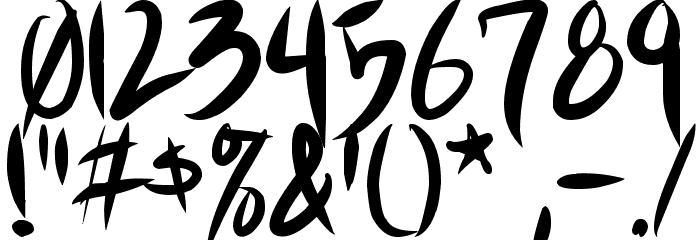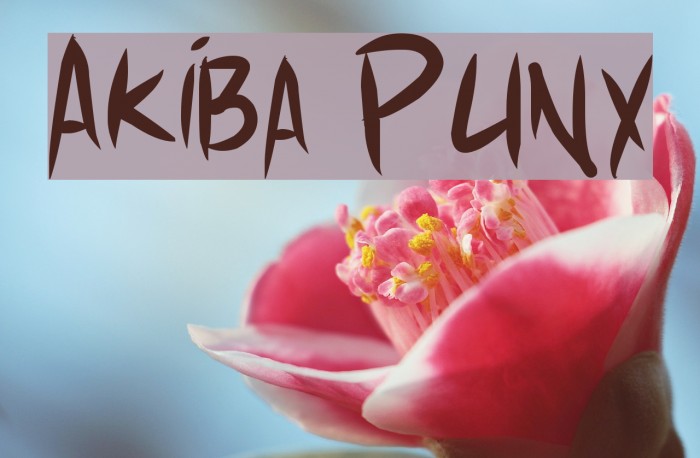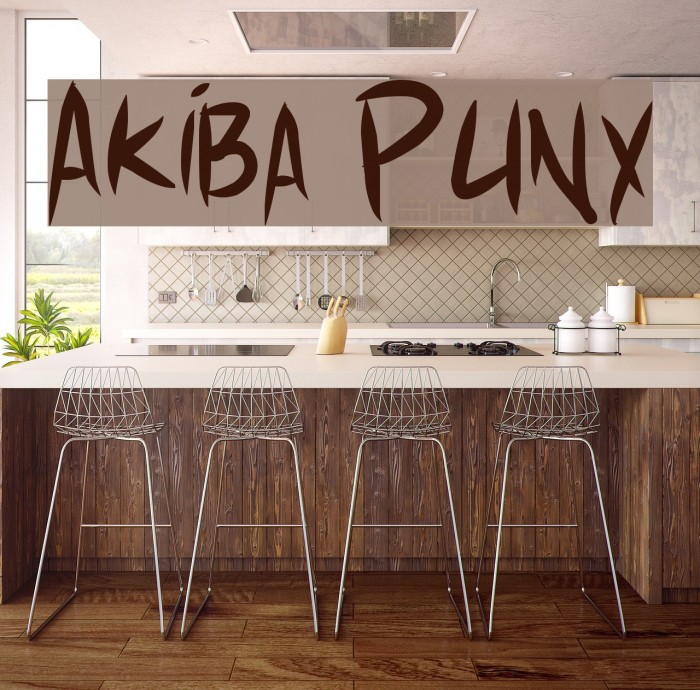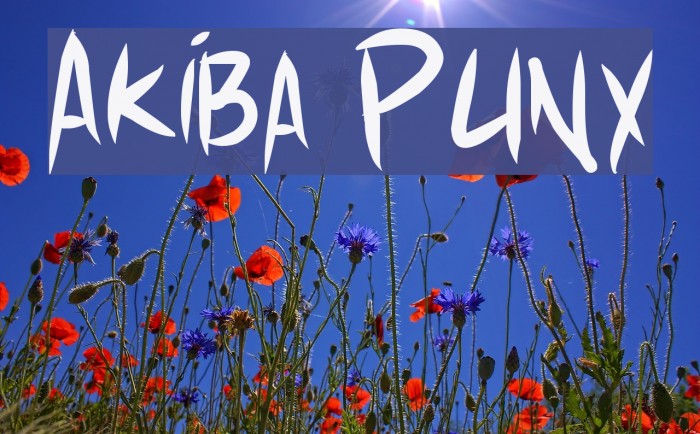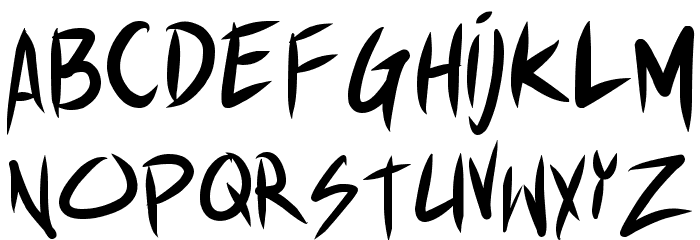
Akiba Punx Font
This font exudes a bold and energetic style, characterized by its sharp, angular strokes and dynamic, hand-drawn appearance. The letters are crafted with a sense of movement and flair, making them stand out with a rebellious and edgy vibe. The uppercase and lowercase letters maintain a consistent style, with exaggerated curves and pointed edges that give the font a distinctive personality. The numbers and special characters follow the same aesthetic, ensuring a cohesive look across all elements. This font is perfect for projects that require a touch of attitude and uniqueness.
A bold, energetic font with sharp, angular strokes and a rebellious vibe.
• Proposed Projects: Ideal for music album covers, streetwear branding, posters, and edgy graphic designs.
• Category: Decorative/Display
• Bold: Yes
• Italic: No
• Weight: Bold
• Width: Normal
• Character Spacing: Normal
• Contrast: High
• Overall Style: Modern, Edgy
• Use Case: Headlines, Logos, Posters